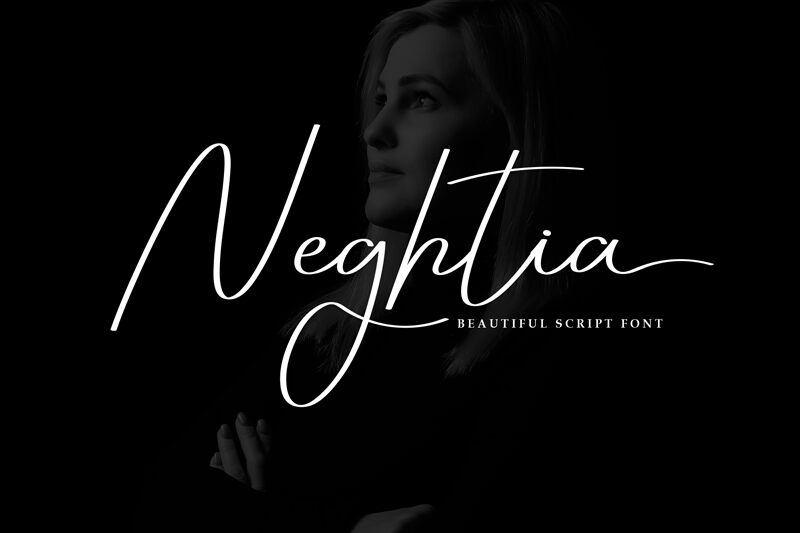
Neghtia font
Neghtia
Our special creative products offer an extraordinary experience that enhances your projects. These stylish letters are perfect for a variety of applications, including wall displays, wedding invitations, social media logos, advertisements, product packaging, labels, photography, watermarks, stationery, and any project requiring elegant handwriting.